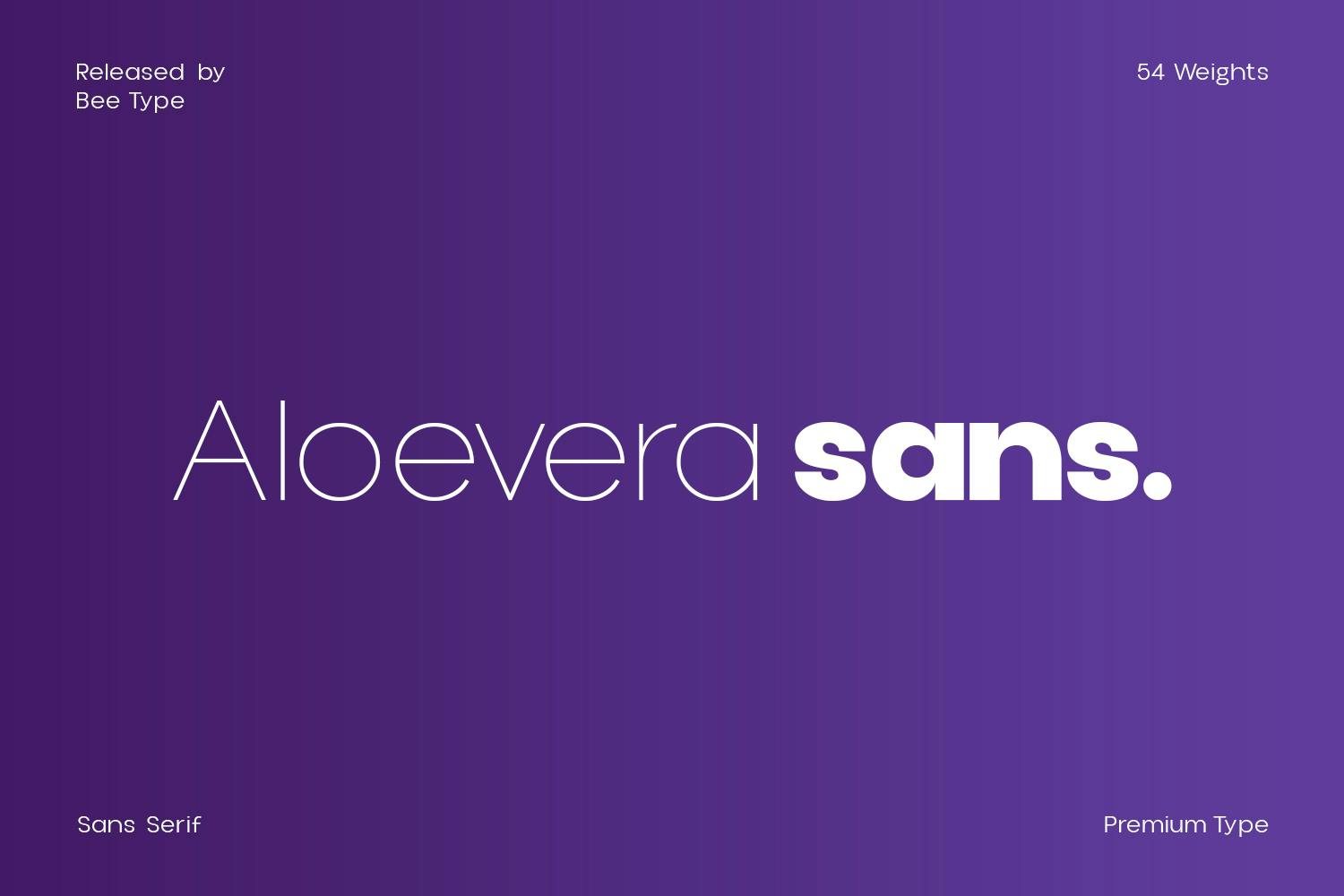
Aloevera Display Font
Aloevera Display Font soothes natural skincare packaging, organic beauty product labels, wellness spa branding, botanical garden signage, herbal medicine materials, natural healing center identities, eco-friendly cosmetics campaigns, holistic health publications, organic farming promotions, desert botanical exhibitions, sustainable beauty brands, and healing-focused marketing where aloe-inspired tranquility and natural healing create therapeutic visual experiences.
This healing typeface generates excitement through its perfect embodiment of aloe vera's soothing properties and natural healing energy that creates typography radiating wellness and botanical tranquility. Aloevera Display Font captures the essence of natural healing with its smooth, flowing letterforms that mirror the gentle curves of aloe vera leaves and the calming effect of natural botanical remedies. The font's organic design approach incorporates elements that suggest growth, healing, and the nurturing power of nature, featuring soft edges and natural proportions that create an immediate sense of comfort and wellness. Its distinctive character reflects the purity, healing power, and gentle strength that define authentic natural skincare and holistic wellness practices.
The Aloevera Display Font family includes multiple healing variations such as Regular, Light, Medium, Bold, and Organic versions, each maintaining the font's characteristic soothing quality while offering different levels of natural impact. The collection features botanical styling, healing-inspired effects, and organic textures that enhance its wellness aesthetic. Additional elements include leaf ornaments, natural symbols, botanical decorative borders, and healing-focused flourishes that reinforce the font's connection to aloe vera's therapeutic properties and natural skincare benefits.
Natural beauty brands and wellness professionals consistently select Aloevera Display Font Free Download for projects requiring typography that communicates authentic healing and natural wellness benefits. This remarkable typeface excels in applications where establishing trust and conveying therapeutic authenticity are essential for health-conscious consumers. The font's aloe-inspired qualities make it particularly effective for skincare companies, wellness centers, and natural health brands targeting audiences who value organic solutions and plant-based healing approaches.
Whether you're designing natural skincare branding, creating wellness center materials, developing organic beauty campaigns, or crafting healing-focused communications, Aloevera Display Font delivers unmatched botanical authenticity. Its ability to convey healing, natural purity, and therapeutic benefits makes it invaluable for wellness brands seeking typography that genuinely reflects the soothing power of nature. The font's healing presence ensures your designs will communicate the gentle effectiveness and natural wellness that define exceptional botanical communications and therapeutic skincare experiences.